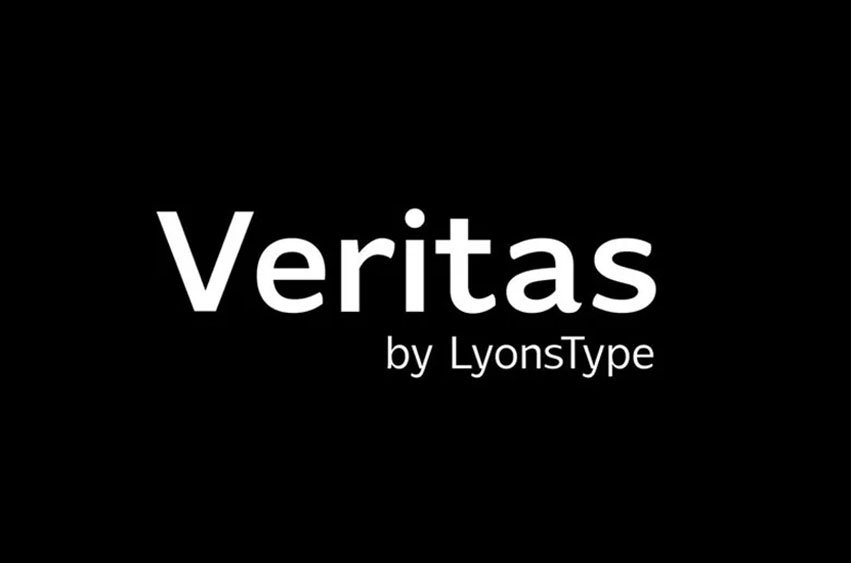
LT Veritas Font is one of the geometric sans serif font family that combine grotesque elements with a special touch of its own. In terms of appearance, LT Veritas has a consistent style applied across all the characters with no rough edges, no pits or bumps.
This typeface is characterized by its clear and consistent performance, which makes it a nice and trustworthy choice for different design purposes.